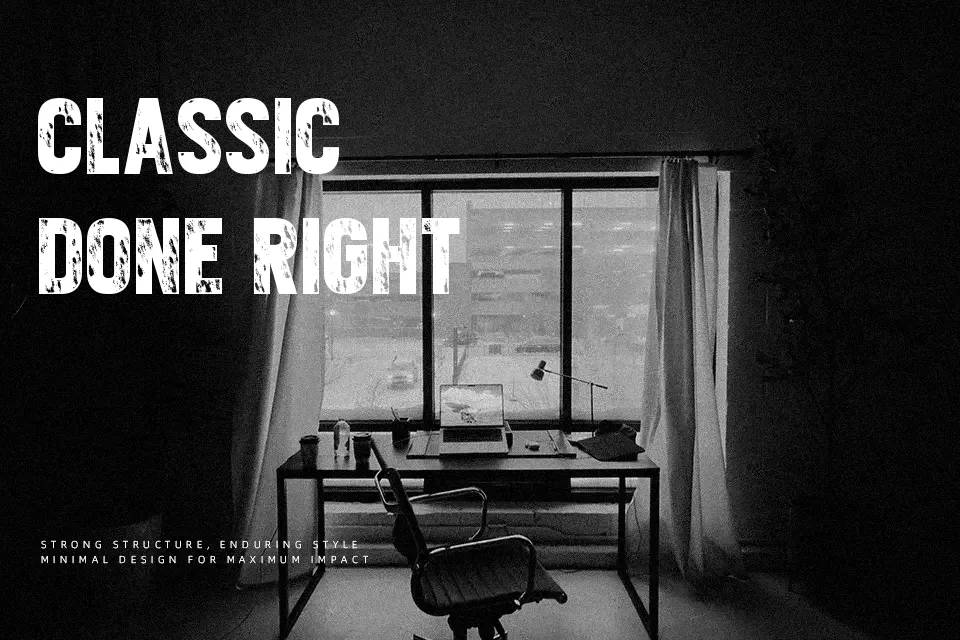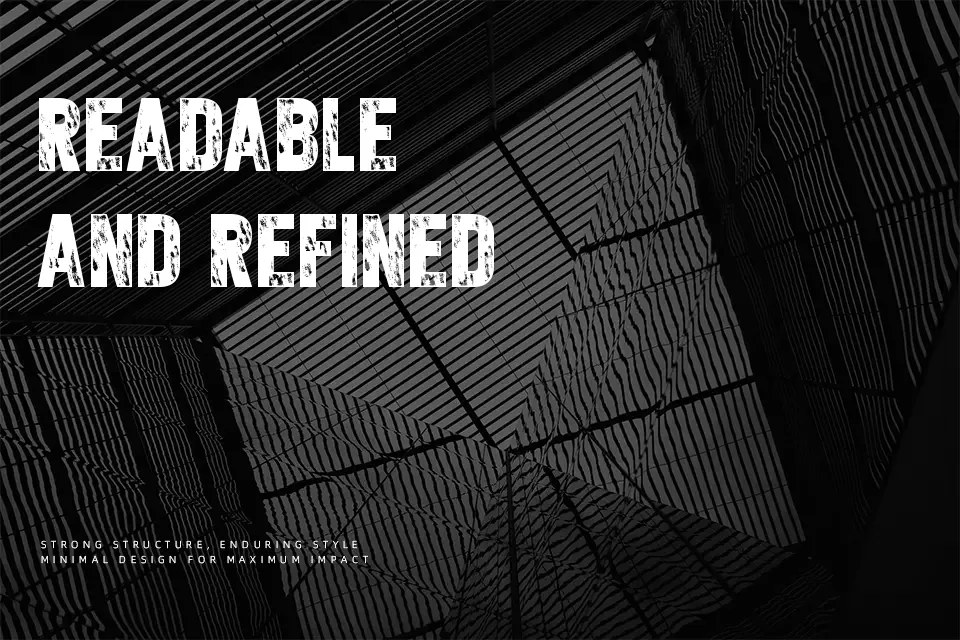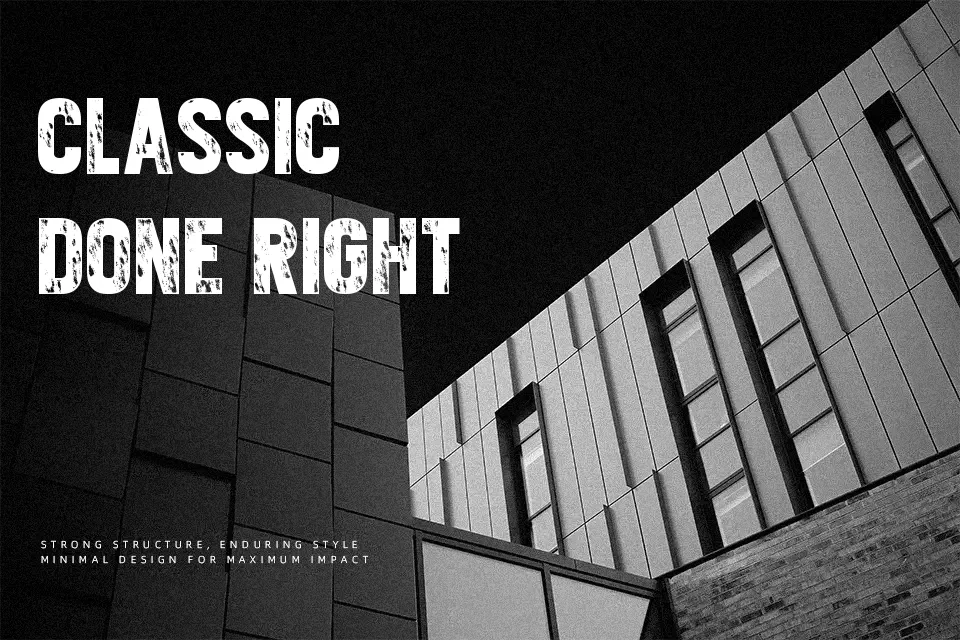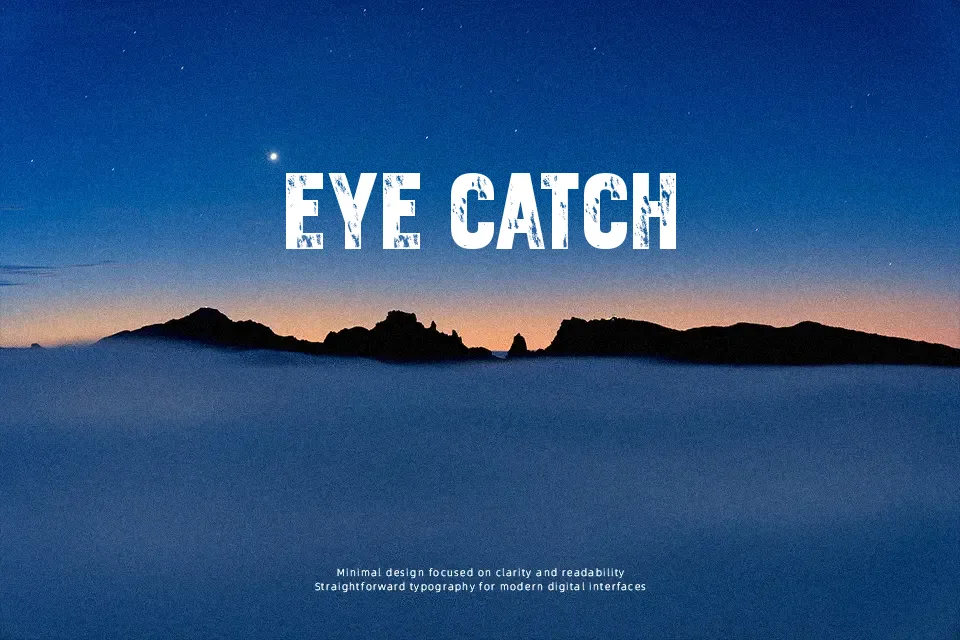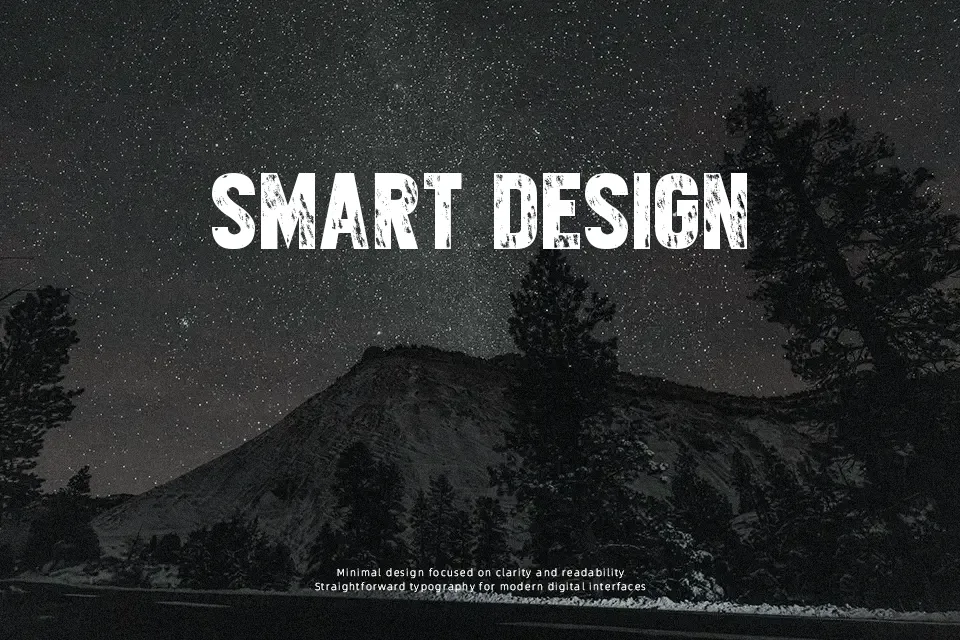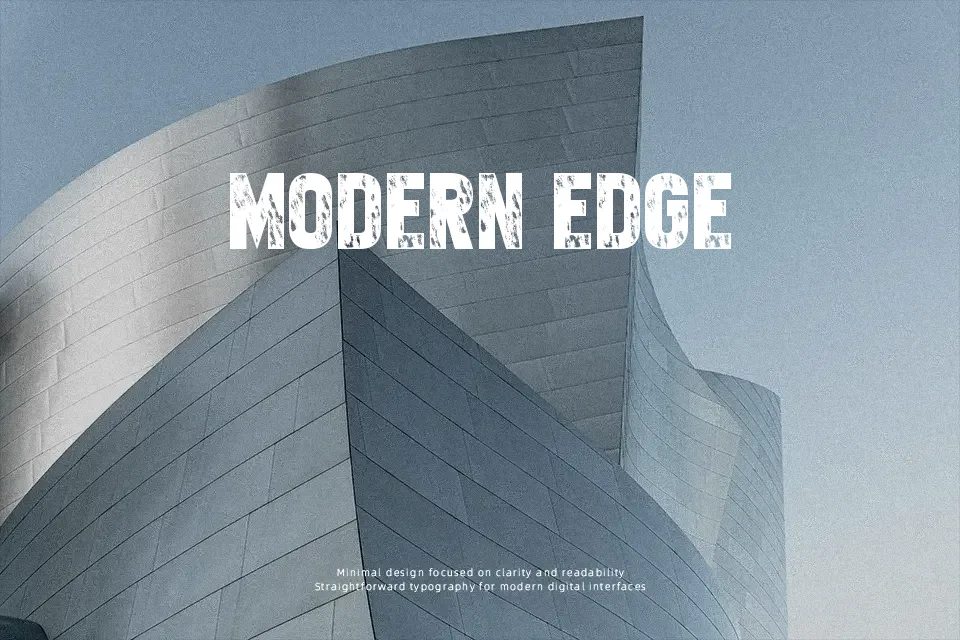
Variety killer Font
Variety killer Font introduces an aggressive display presence characterized by heavy, distressed strokes and textured erosion across every glyph. The typeface features compact proportions, consistent upright geometry, and moderately tight spacing that preserves letterform distinction across brief titles. While high stroke weight ensures unmistakable presence in large headlines, the eroded detailing and thick silhouettes quickly lose definition at reduced scales. The letterforms excel in prominent display contexts such as entertainment posters and band merchandise, though dense structural weathering makes continuous reading in extended paragraphs uncomfortable.
Best For: heavy metal band posters, post apocalyptic video game titles, streetwear graphic prints, haunted attraction signage
Not Ideal For: continuous book text, financial spreadsheets, mobile application navigation, fine print legal notices
Perfect for branding, gaming, and headline, with a bold and decorative style.